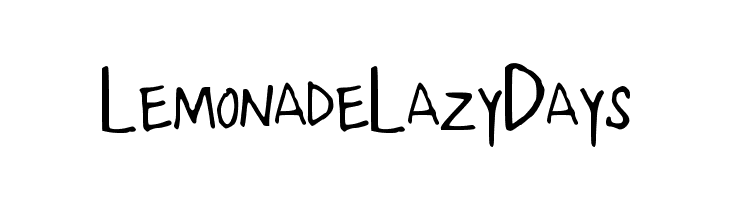
A playful, hand-drawn style font with tall, narrow letters and consistent stroke thickness.
A playful handwritten font with a casual and friendly style.
A playful, hand-drawn font with a casual and whimsical style.
A playful, hand-drawn font with tall, narrow letters and a casual style.